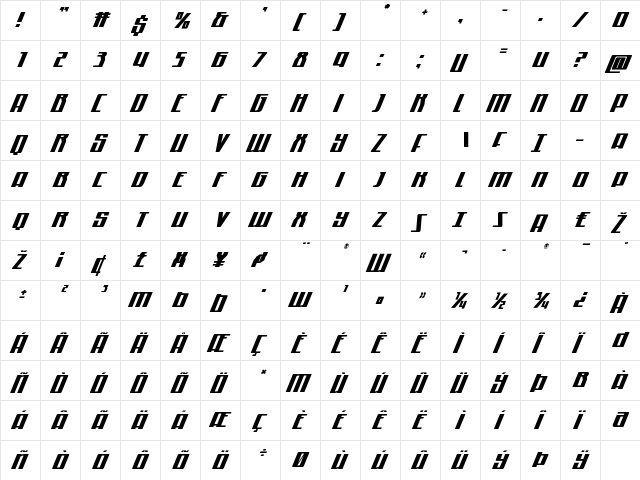
Quantum of Malice Drop Italic Italic
Design Context for Quantum of Malice Drop Italic Typeface
Quantum of Malice Drop Italic is a composed and adaptable typeface that performs quietly and consistently across a wide range of design contexts. The dynamic lean of this cut emphasises speed and emphasis in any layout.